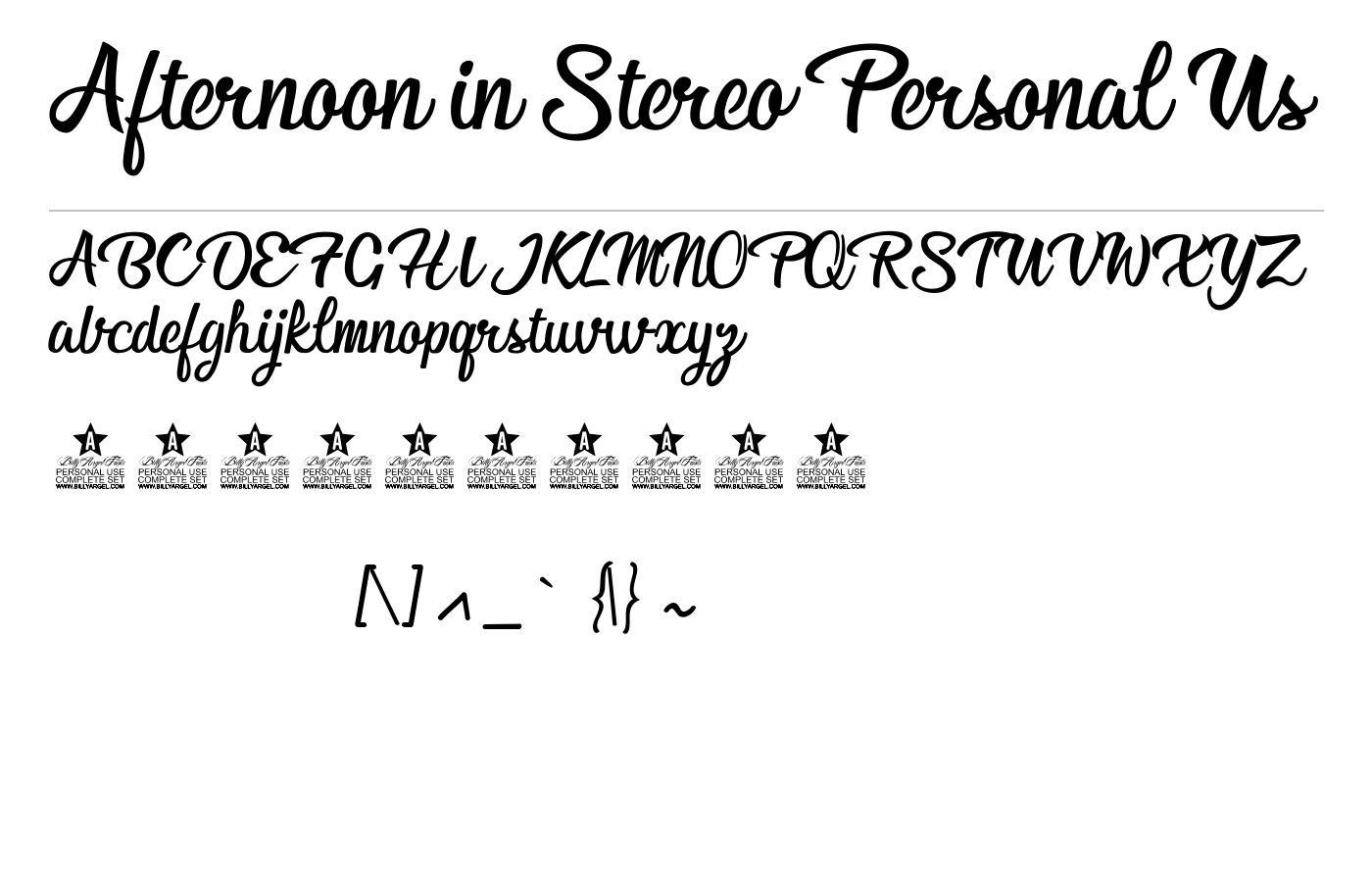
Afternoon in Stereo Personal Us is a graceful script font with a smooth, flowing style that combines elegance with a casual, handwritten feel. Its medium weight and balanced letterforms, including distinctive loops and gentle curves, make it perfect for adding a personal, friendly touch to invitations, branding, and creative projects. This font works well in both display and short text settings, offering warmth and charm without sacrificing readability.
Afternoon in Stereo Personal Us Font
About Afternoon in Stereo Personal Us Font
| Font family | Afternoon in Stereo Personal Us Font |